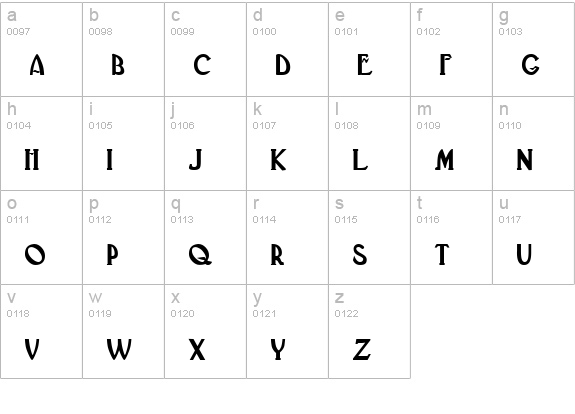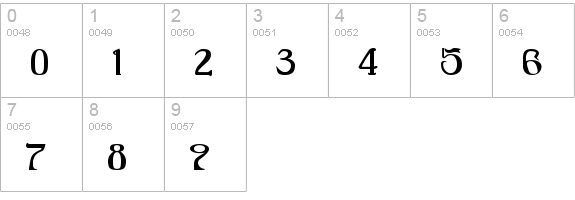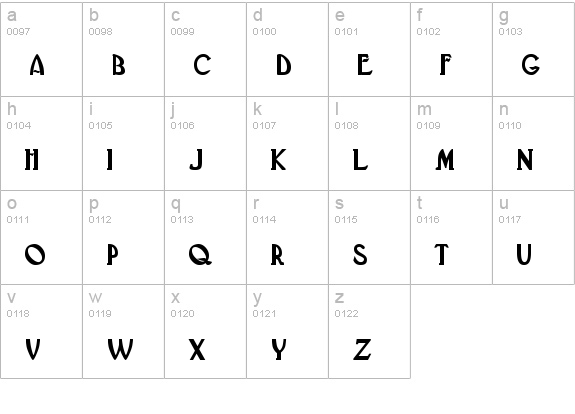
Deco Bold Font Details
Deco Bold is a strong, high-contrast variant in the Deco typeface family \xE2\x80\x94 well suited to headlines, attention-grabbing titles, and strong calls-to-action.
Deco Bold font is a stunning display typeface that exudes a sense of elegance and sophistication. Its bold and distinct characters make a powerful statement, perfect for headlines, titles, and branding projects. The font's Art Deco-inspired design adds a touch of retro charm, while its clean lines and geometric shapes give it a modern edge. What sets Deco Bold font apart is its versatility - it can be used for a wide range of design projects, from posters and packaging to logos and invitations. Its bold weight commands attention, making it ideal for creating eye-catching designs that stand out. Best of all, Deco Bold font is available for free download at FontsMarket.com, making it easily accessible to designers looking to add a touch of sophistication and style to their projects. Don't miss out on this fantastic font that combines vintage flair with contemporary appeal - download Deco Bold today and elevate your designs to the next level.